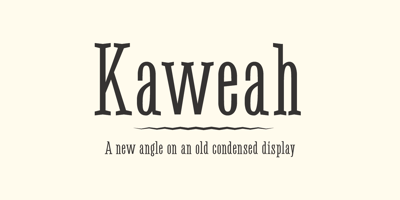
Kaweah
Kaweah font
Kaweah Font Family was designed by Rob McConnell and published by RMtype. Kaweah contains 1 styles and family package options. Kaweah is a sharp, condensed, serif typeface with wide language support and strong historical roots. The original inspiration for this typeface comes from text in the museum collection of Kings Canyon National Park. It is designed to be used in titles and subheads.